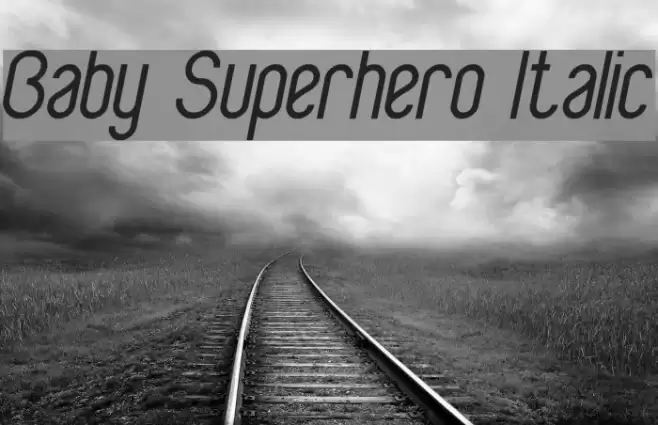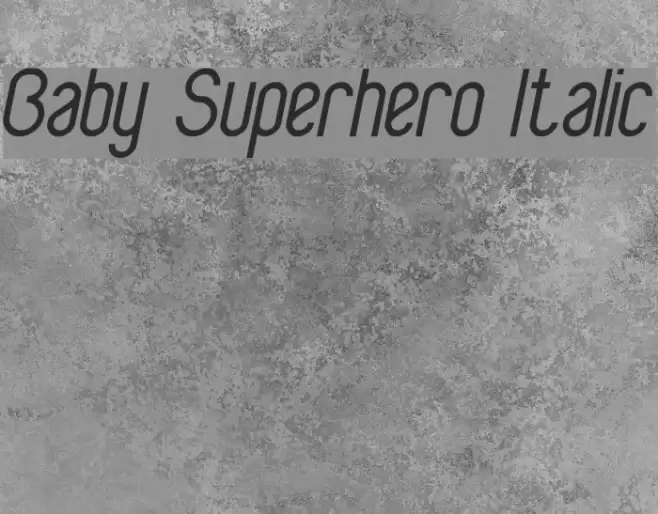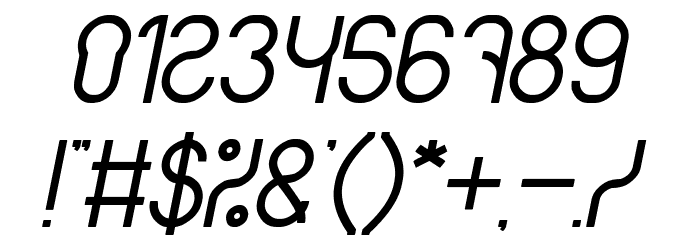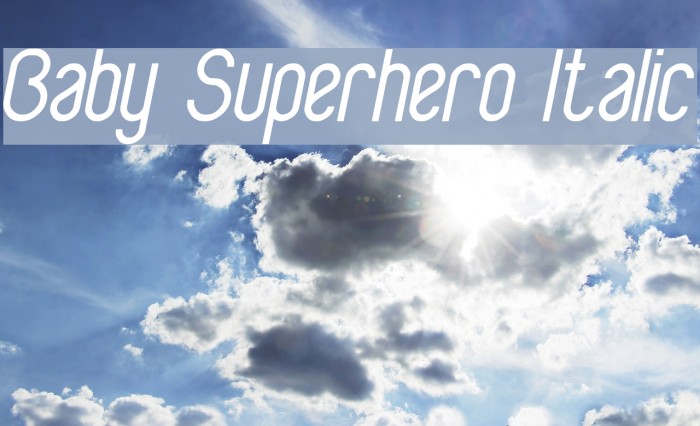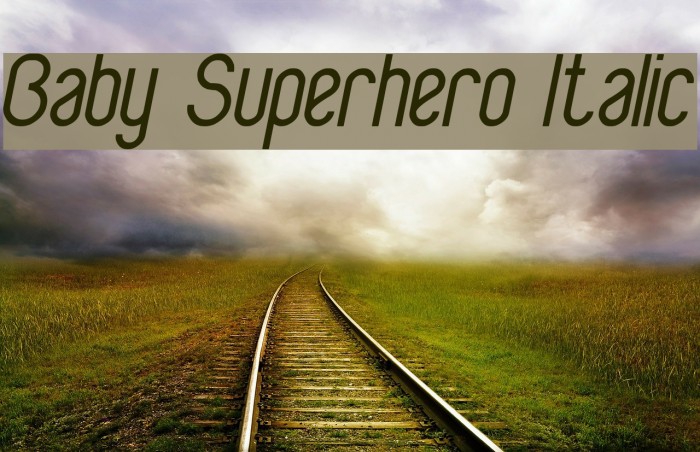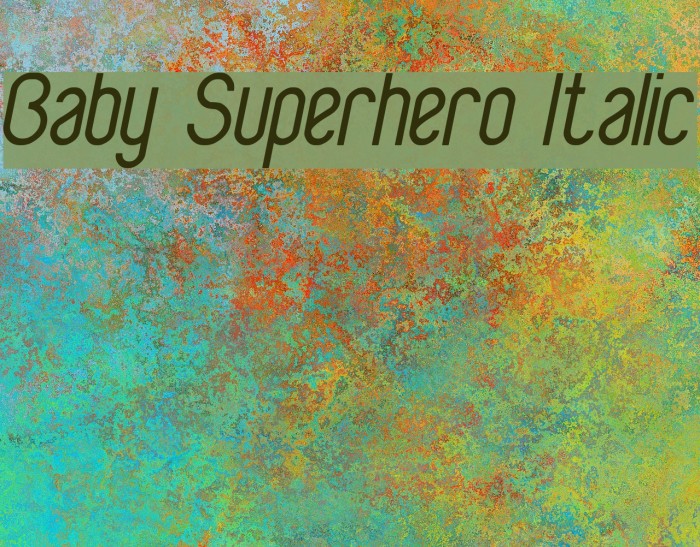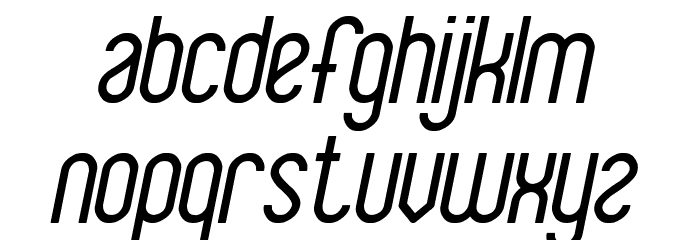
Baby Superhero Italic Font
Baby Superhero Italic Description
This font features a playful and dynamic style, characterized by its italicized, rounded letterforms that convey a sense of movement and energy. The uppercase and lowercase letters maintain a consistent slant, enhancing the fluidity of the design. The numerals and special characters are crafted with the same attention to curvature and balance, ensuring uniformity across all glyphs. The font's unique aesthetic is both modern and approachable, making it suitable for a variety of creative applications. Its distinct personality is evident in the way each character is designed to flow seamlessly into the next, creating a cohesive and engaging visual experience.
A playful, italicized font with rounded, dynamic letterforms from Uncategorized fonts.
- Proposed Projects: Ideal for children's books, comic strips, playful branding, and creative posters.